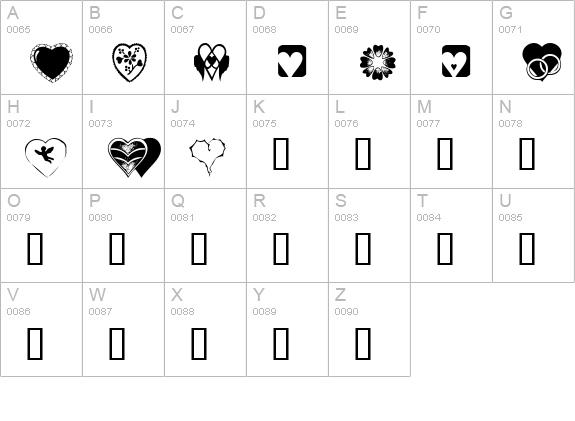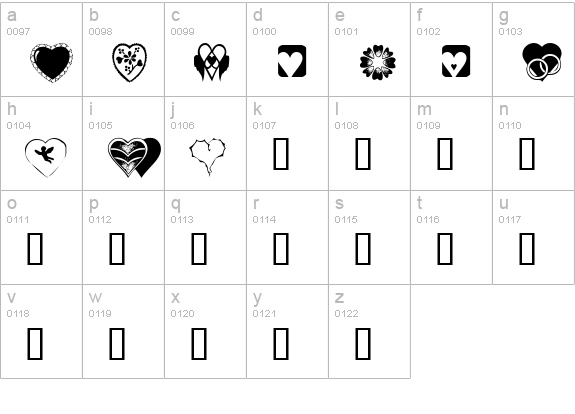
KR Heartiness Font Details
KR Heartiness font is a charming and versatile typeface that exudes warmth and friendliness. With its bold strokes and playful curves, this font is perfect for adding a touch of personality to any design project. Whether you're creating a greeting card, poster, or logo, KR Heartiness will make your text stand out with its unique style. What's even better is that KR Heartiness font is completely free to use! You can easily download this delightful typeface at FontsMarket.com and start incorporating it into your designs right away. Don't miss out on the opportunity to add a touch of heartiness to your projects with this fantastic font.